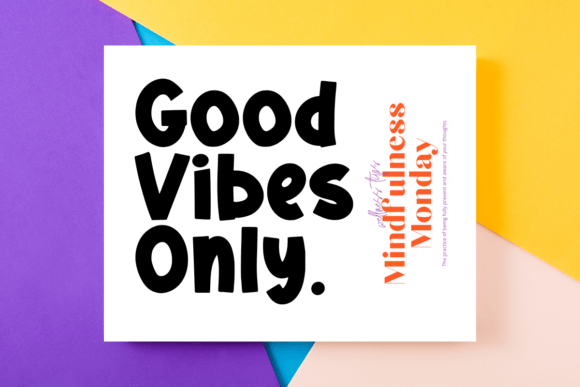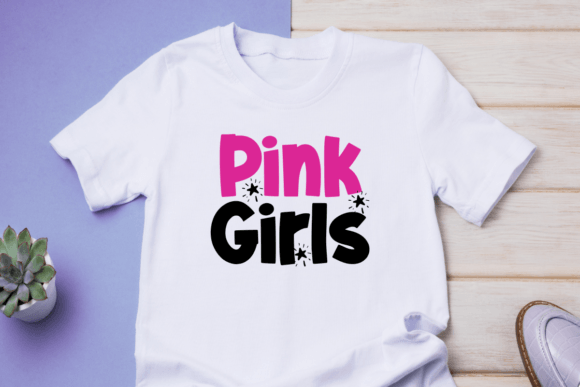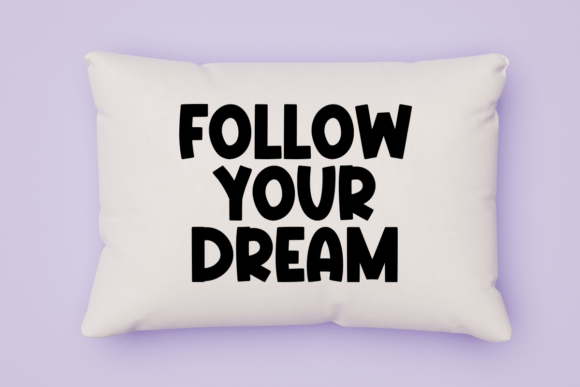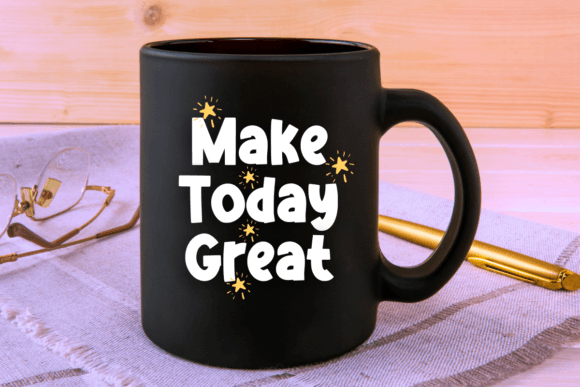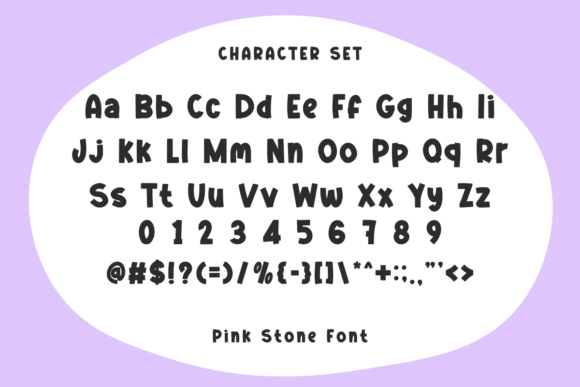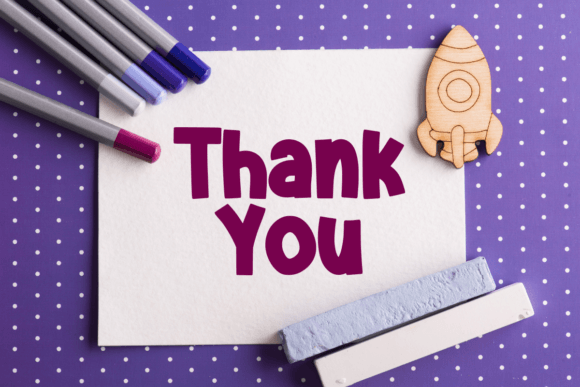
Introduction to Pink Stone Font Font
Fonts play a crucial role in design, and the Pink Stone Font font is a typeface that brings both character and versatility to any project. Whether you’re working on a branding project, a website, or a print design, the Pink Stone Font font offers a unique style that can elevate your work.
Pink Stone is a unique but Quirky display font that adds a little fun to any design.
With rounded edges and cute letter shapes, it exudes a sense of whimsy and versatility Ideal for branding, packaging, posters, and anything that needs a touch of playfulness and creativity.
Key Features of Pink Stone Font Font
Why Choose Pink Stone Font Font?
The Pink Stone Font font is more than just a typeface – it’s a design tool that helps you communicate your message with style and clarity. Its unique character set and versatile design make it suitable for a wide range of applications, from elegant invitations to bold headlines.
With its carefully crafted letterforms and balanced proportions, the Pink Stone Font font ensures readability and visual appeal across all mediums.
What makes Pink Stone Font font special?
The Pink Stone Font font stands out with its unique design, exceptional readability, and versatility across various design applications.